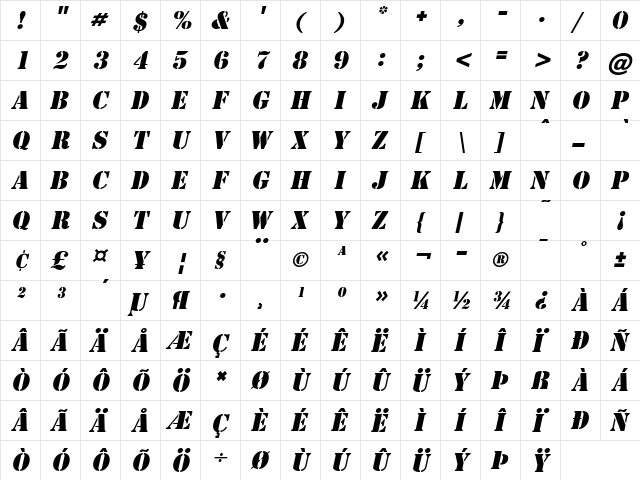
Cargo Italic
Design Context for Cargo Typeface
Cargo is a composed and adaptable typeface that performs quietly and consistently across a wide range of design contexts. The slanted form adds forward momentum and visual energy.
Pro Tip: Use Cargo for emphasis, pull quotes, and subheadings where its slanted energy can add rhythm to the layout.